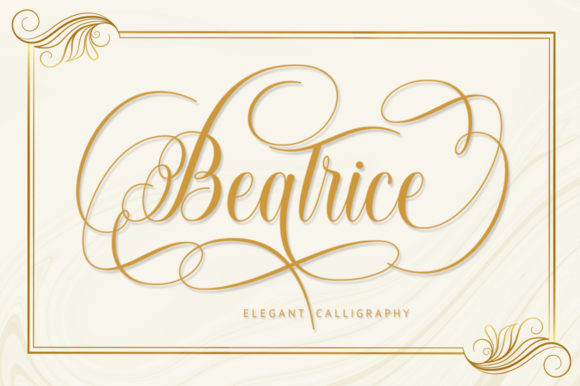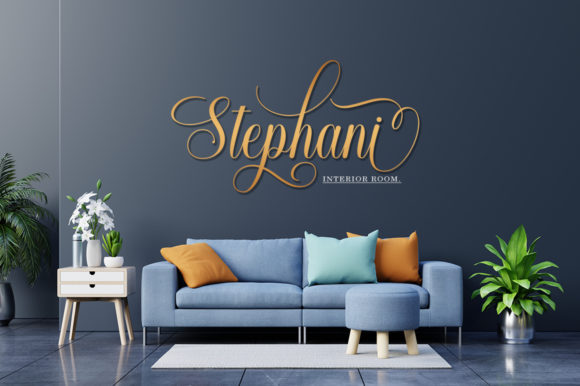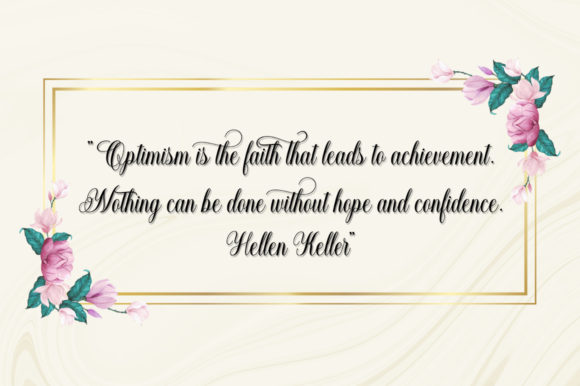
Beatrice Font
About Beatrice Font
Beatrice feels incredibly elegant and flowing. It looks stunning on wedding invitations, thank you cards, quotes, greeting cards, logos, business cards and every other design which needs a handwritten touch. It features a varying baseline, smooth lines, gorgeous glyphs and stunning alternates.